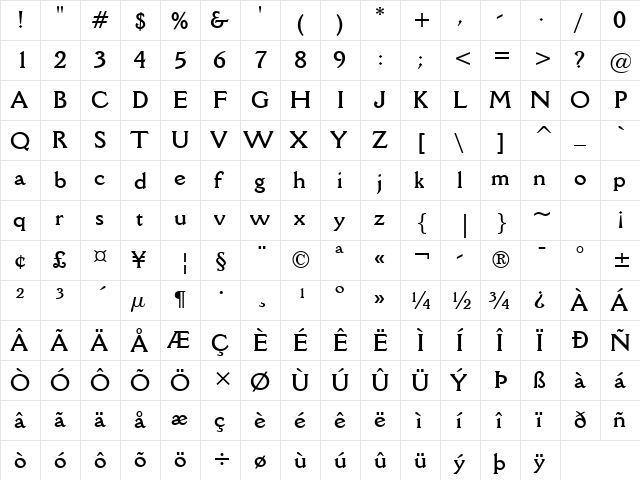
DellaRobbia BT Bold
Design Context for DellaRobbia BT Typeface
DellaRobbia BT is a composed and adaptable typeface that performs quietly and consistently across a wide range of design contexts. The heavy weight commands attention and anchors typographic hierarchies.